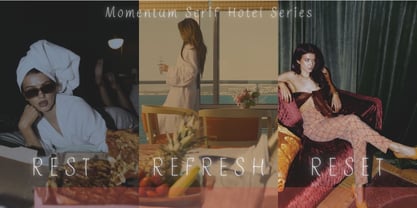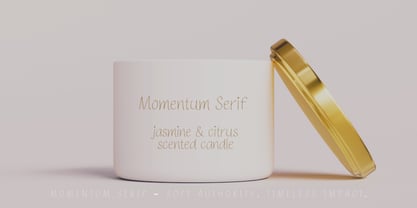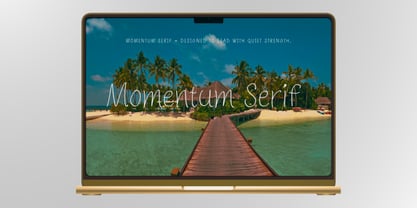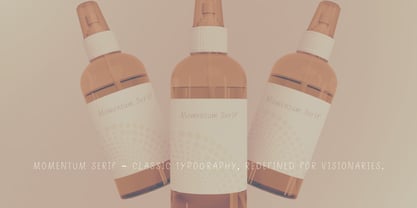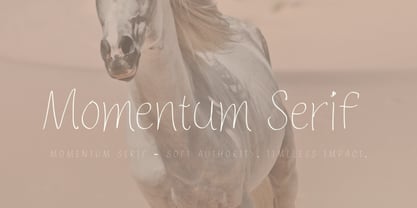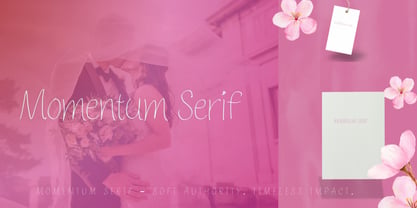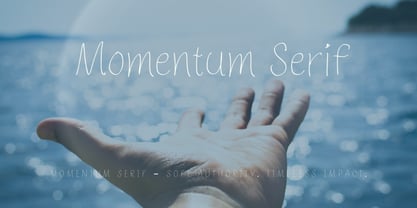
Momentum Serif
Momentum Serif – A Timeless Typeface for Luxury Branding
Momentum Serif is a sophisticated, high-contrast serif typeface crafted to evoke quiet luxury and refined editorial elegance. Every letterform is intentional—built for modern creatives, fashion houses, and visionary brands seeking a distinctive, elevated voice.
Perfect for luxury packaging, magazine covers, resort branding, or elegant stationery, Momentum Serif adds presence without overpowering. Its graceful structure lends visual confidence and timeless appeal across both print and digital formats.
Features:
Full Uppercase + Lowercase Alphabet
Standard Punctuation & Glyphs
Designed for Print & Digital Use
Perfect For:
Luxury Branding
Fashion Editorials
Magazine Typography
High-End Product Design
Wedding & Lifestyle Collateral